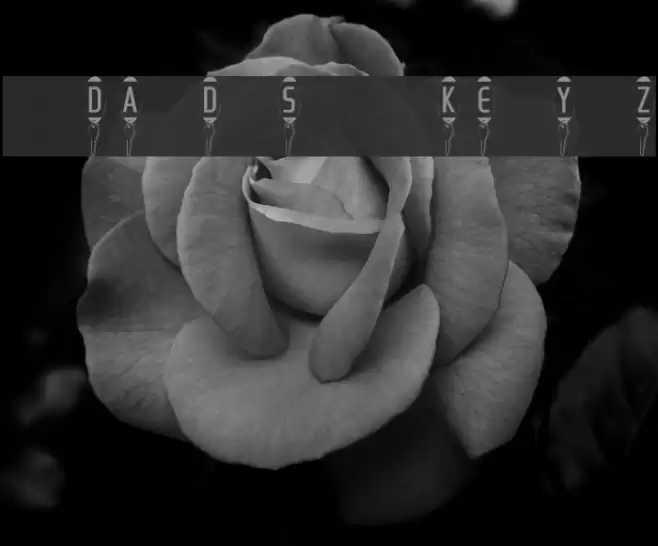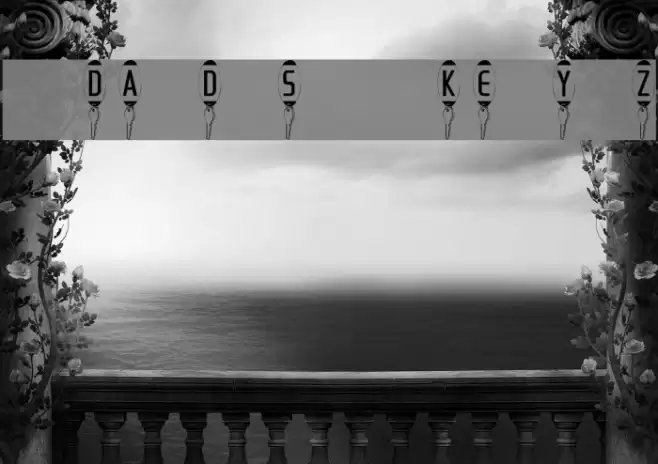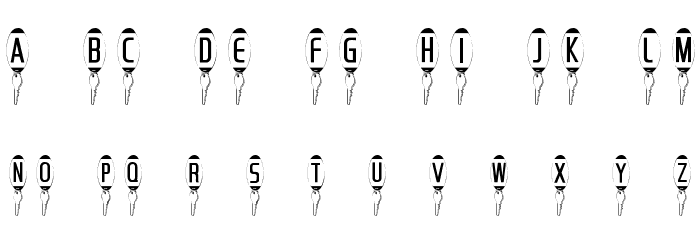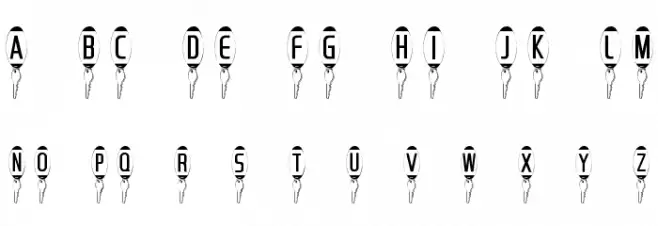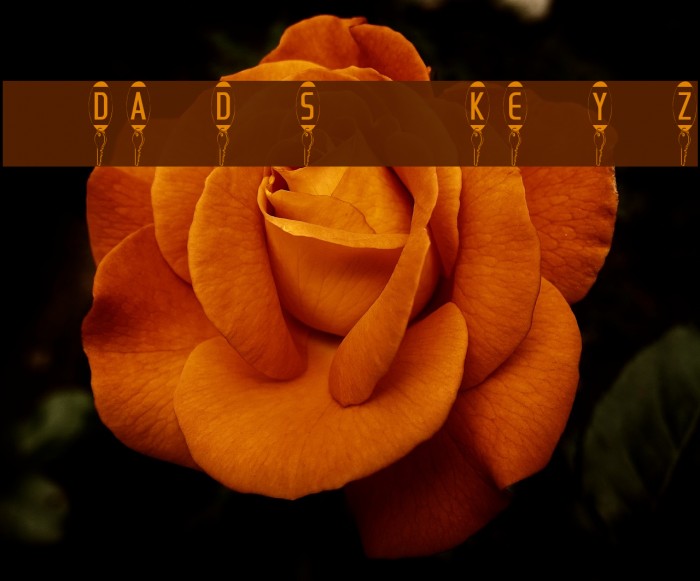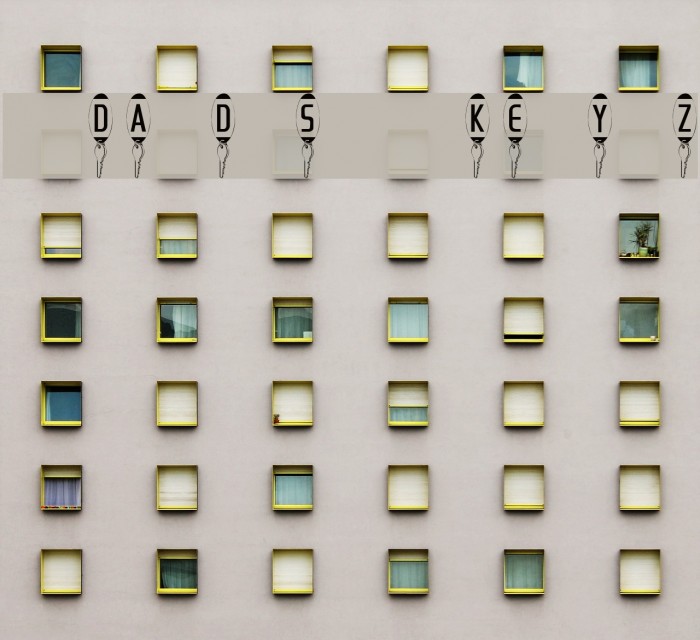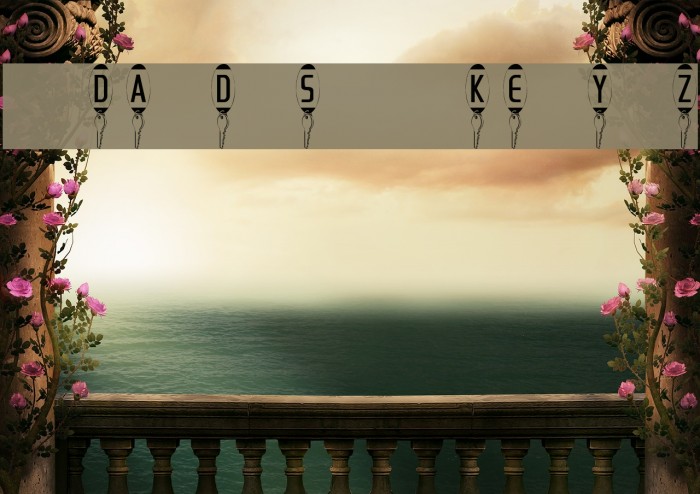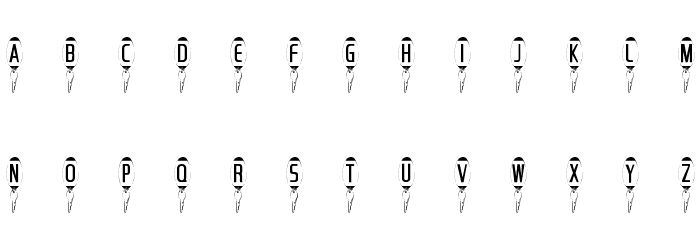
101! Dad's KeyZ Font
101! Dad's KeyZ Description
This unique font features characters enclosed within key-shaped outlines, creating a distinctive and playful aesthetic. Each letter and number is centered within the key, with a bold, uppercase style that stands out against the intricate design of the key itself. The font maintains a consistent size and shape across all characters, ensuring uniformity while allowing the key motif to add an element of surprise and creativity. The design is both decorative and functional, making it suitable for projects that require a touch of whimsy and originality.
A decorative font with characters inside key-shaped outlines from Uncategorized fonts.
- Proposed Projects: Ideal for escape room branding, locksmith advertisements, or themed event invitations.